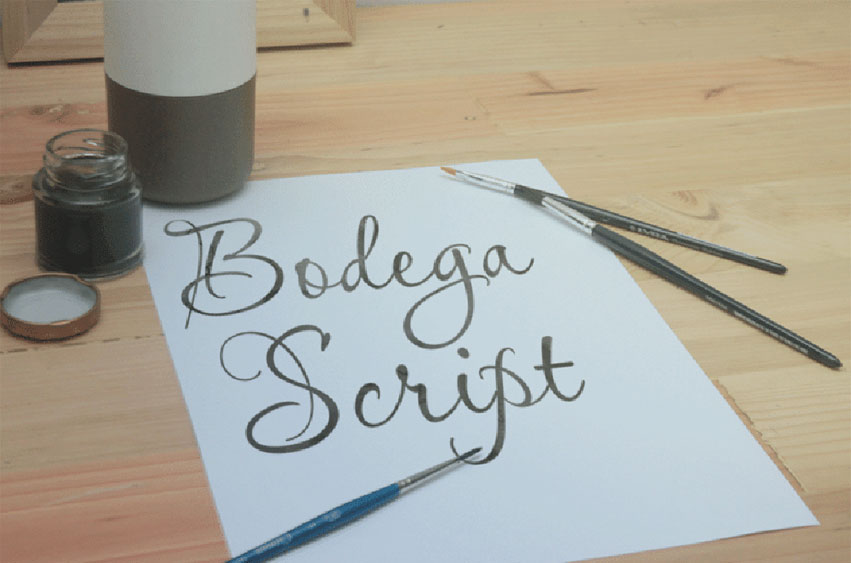
Bodega Script Font is carefully crafted to provide a sense of a true handwritten text with flowing base notes as dance and the timeless elegance and sheen of some of the classical details with some fashionable features.
Concerning the use of Bodega Script, one can be for signatures, headings, logos, wedding invites, and t-shirts; letterhead signs; packaging news bulletins; labels, posters; handwritten quotes and so on.